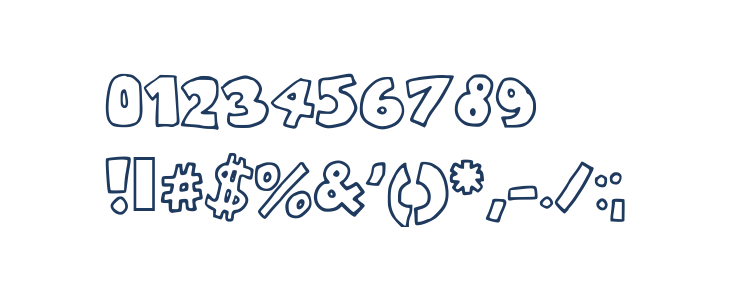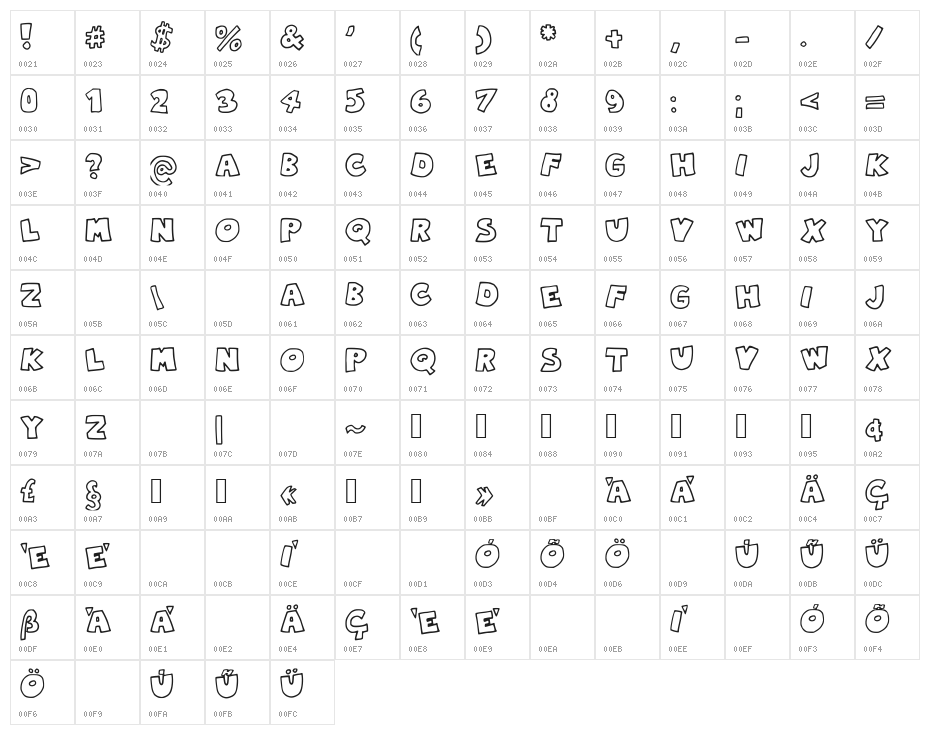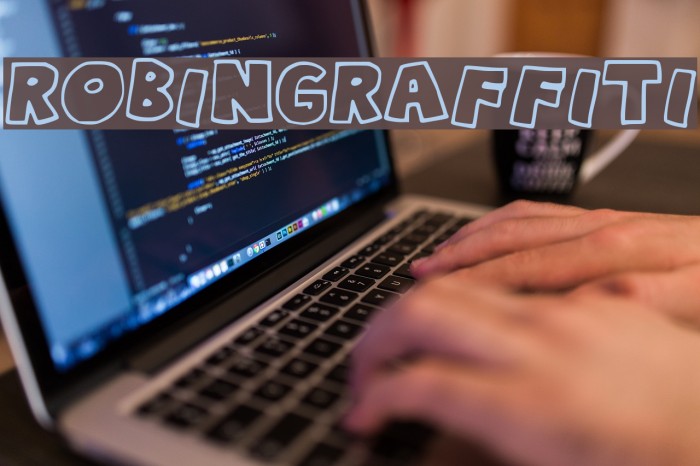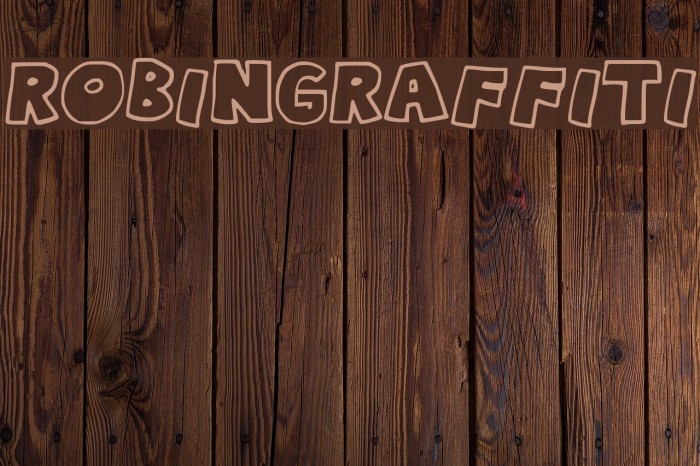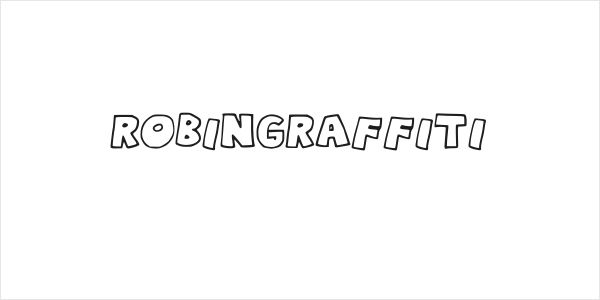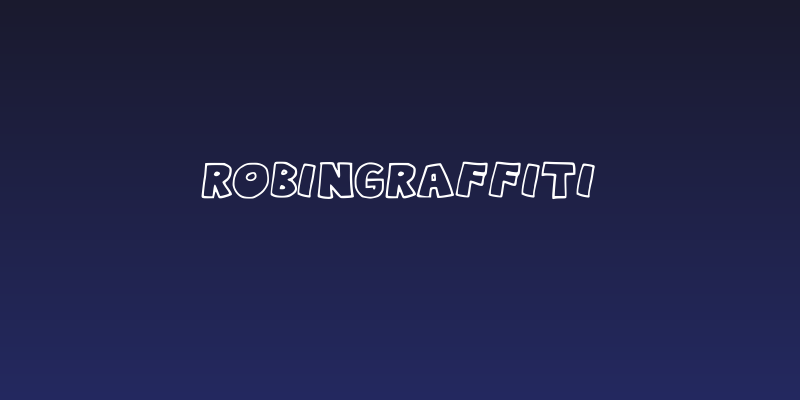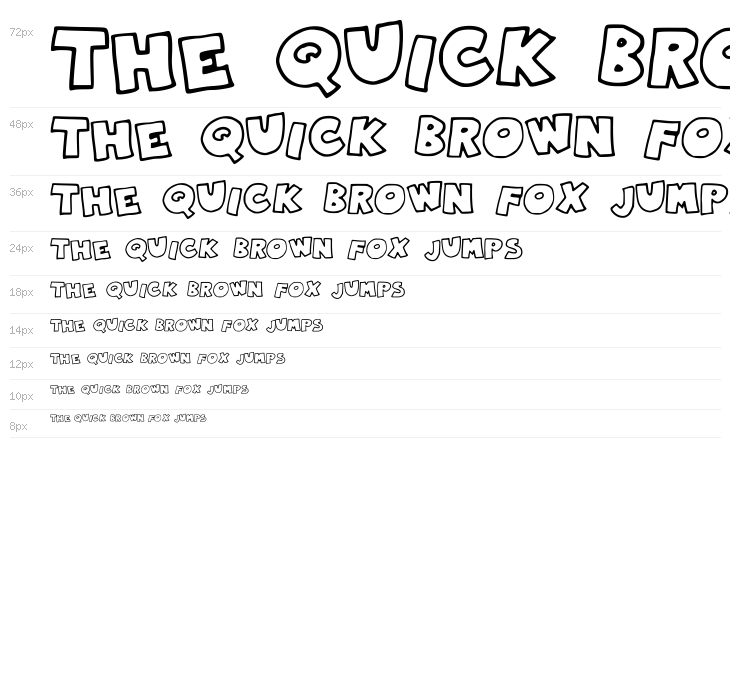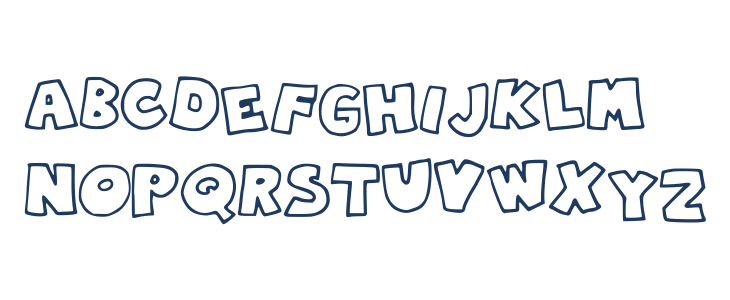
RobinGraffiti Font
RobinGraffiti Description
This font exudes a playful and bold graffiti style, characterized by its thick, rounded edges and dynamic, slightly irregular shapes. The letters are capitalized and exhibit a sense of movement and energy, reminiscent of street art. The numbers and special characters maintain this lively aesthetic, making the font suitable for creative and informal applications. Its bold presence and unique style make it stand out, capturing attention with its urban and youthful vibe.
| Overall Style | Urban, Playful, Energetic |
| Proposed Projects | Ideal for street art designs, urban-themed posters, youth-oriented branding, and creative event flyers. |